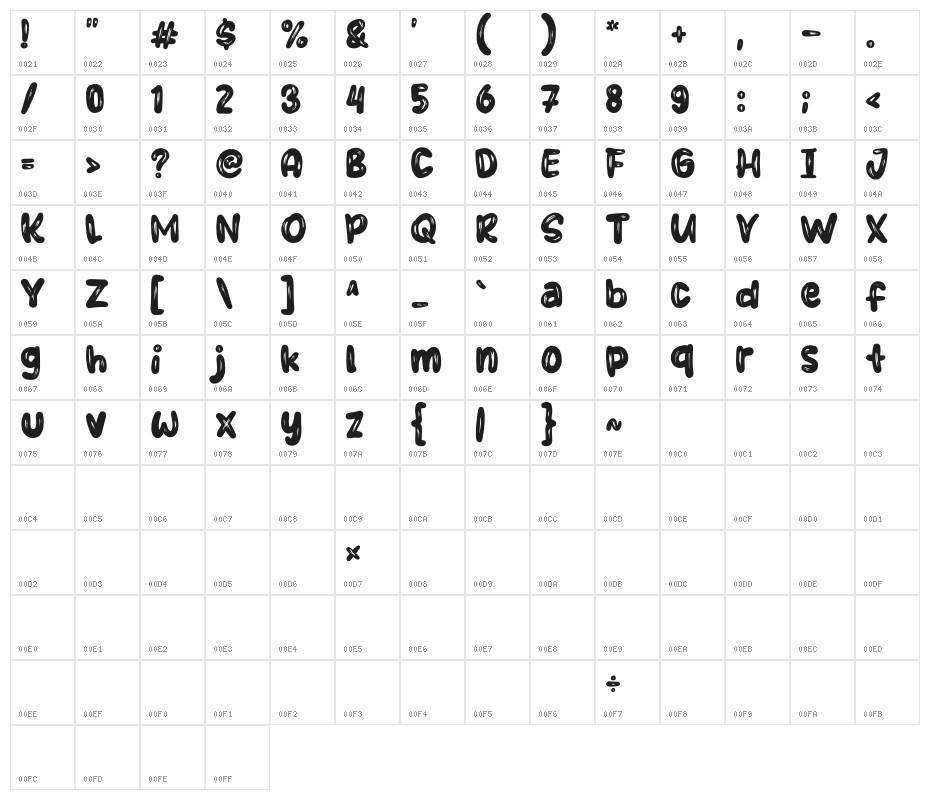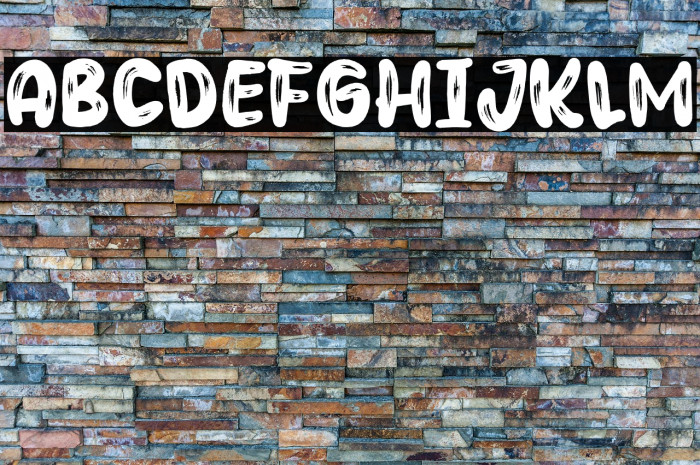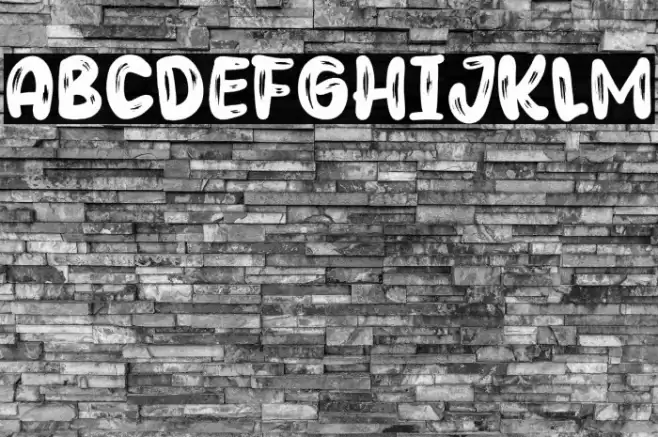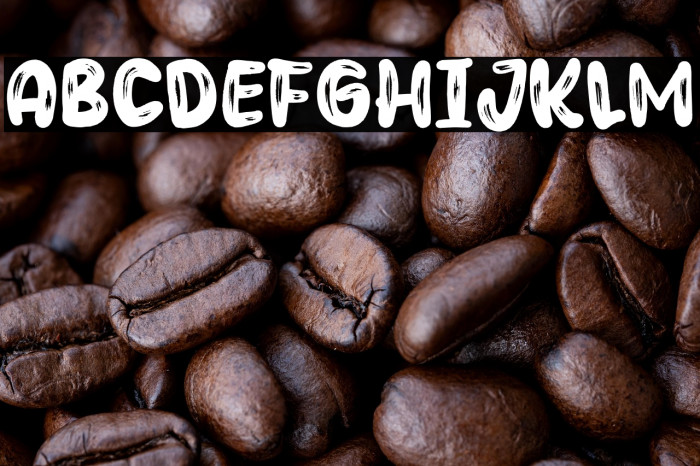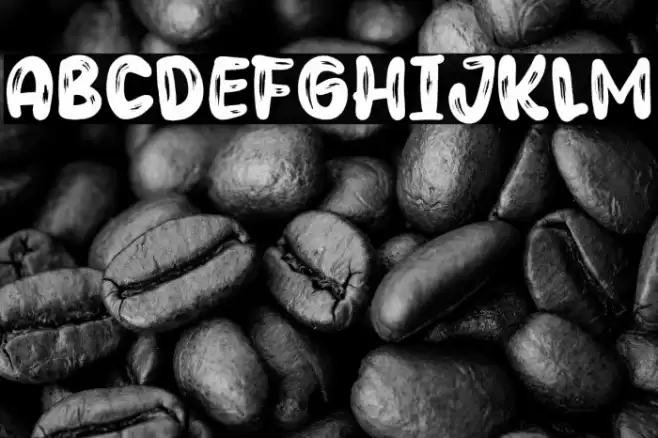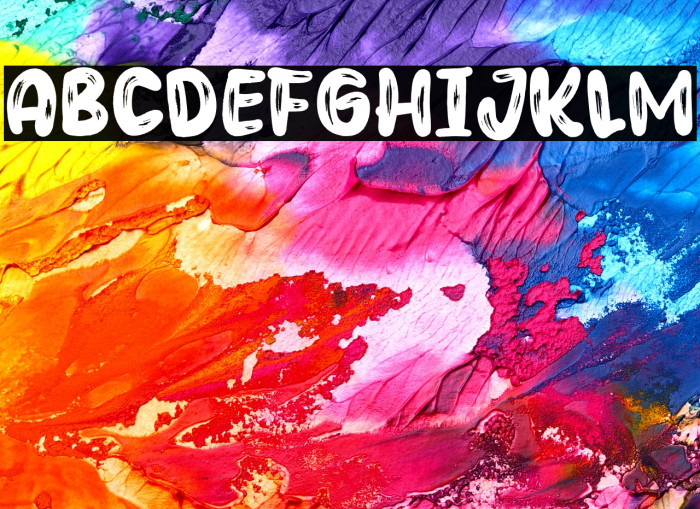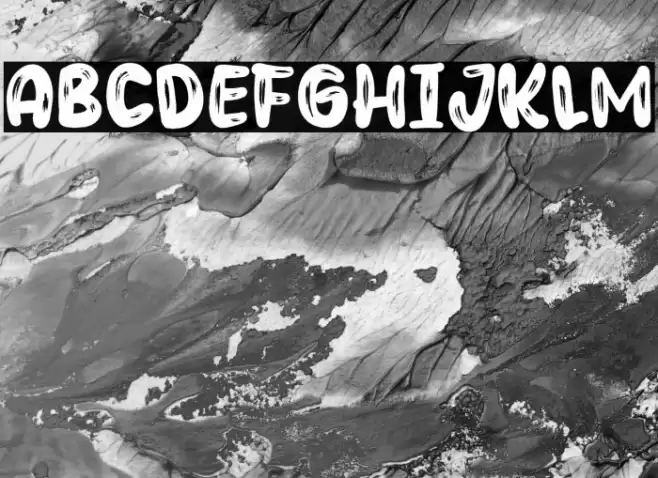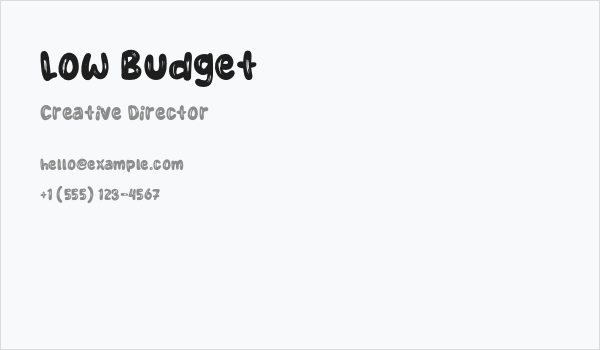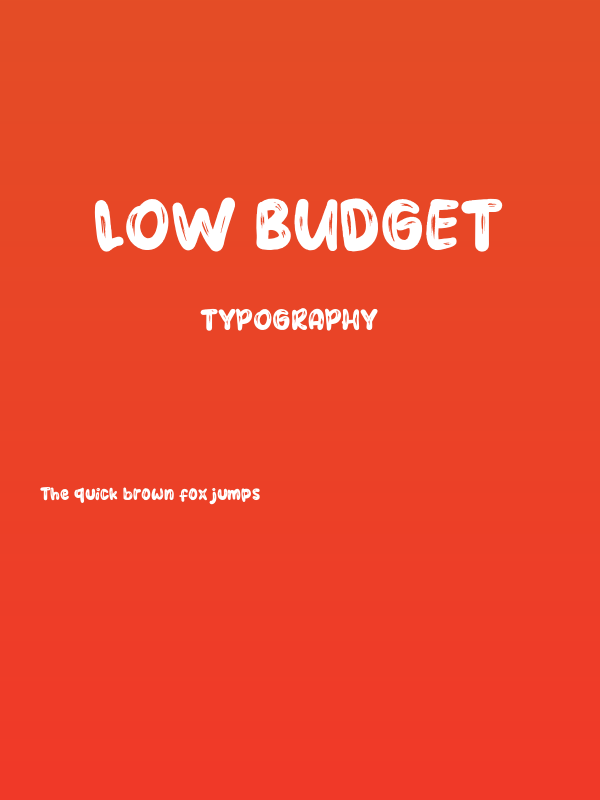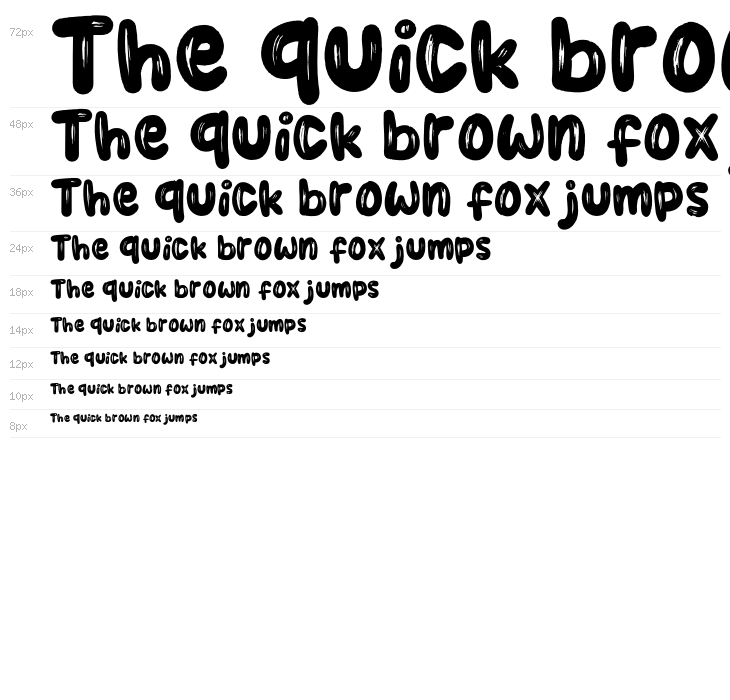
Low Budget Font
Low Budget Description
This font features a bold and playful style with a brush-like texture, giving it a hand-painted appearance. The characters are rounded and slightly irregular, adding to its casual and artistic feel. The uppercase and lowercase letters maintain a consistent style, with the uppercase being slightly larger and more pronounced. Numbers and special characters are equally bold and maintain the same brushstroke effect, ensuring uniformity across all elements. This font's unique texture and lively design make it stand out, perfect for creative and informal projects.
| Proposed Projects | Ideal for posters, greeting cards, children's books, and creative branding projects. |